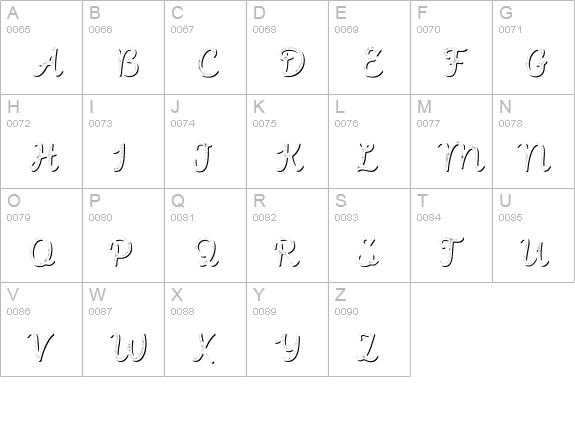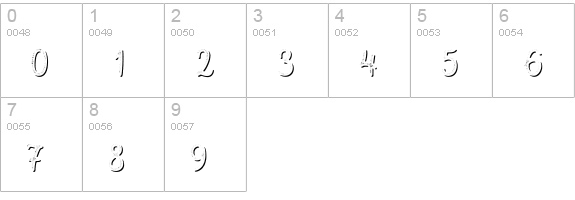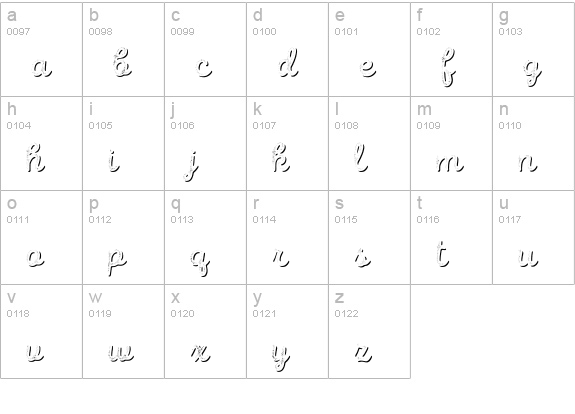
Intro Script R H2 Shade Font Details
Introducing Intro Script R H2 Shade font, a stunning and elegant typeface that exudes sophistication and style. This unique font features intricate details and a modern design that is perfect for adding a touch of luxury to your projects. The delicate shading of the letters adds depth and dimension, making this font truly stand out. What's even better is that Intro Script R H2 Shade font is completely free to download! Yes, you read that right - this gorgeous font is available for free at FontsMarket.com. Whether you're working on a branding project, invitation design, or any other creative endeavor, this font will elevate your work to the next level. Don't miss out on the opportunity to enhance your designs with the beauty of Intro Script R H2 Shade font. Download it today and unlock a world of possibilities for your projects.